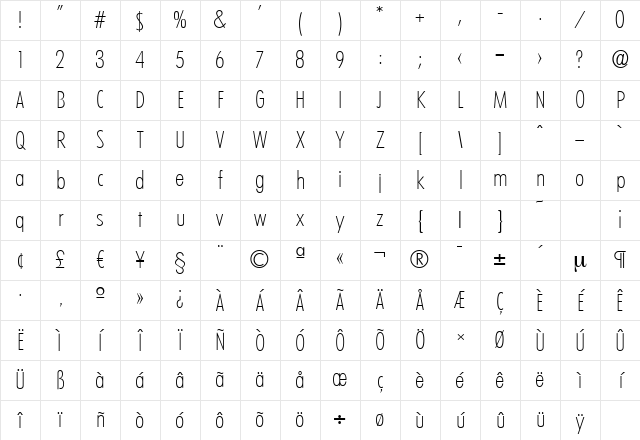
LimerickCdSerial-Xlight Regular
LimerickCdSerial-Xlight Family
Design Context for LimerickCdSerial-Xlight
LimerickCdSerial-Xlight is a composed and adaptable typeface that performs quietly and consistently across a wide range of design contexts. Its slender proportions lend an understated elegance to any composition.